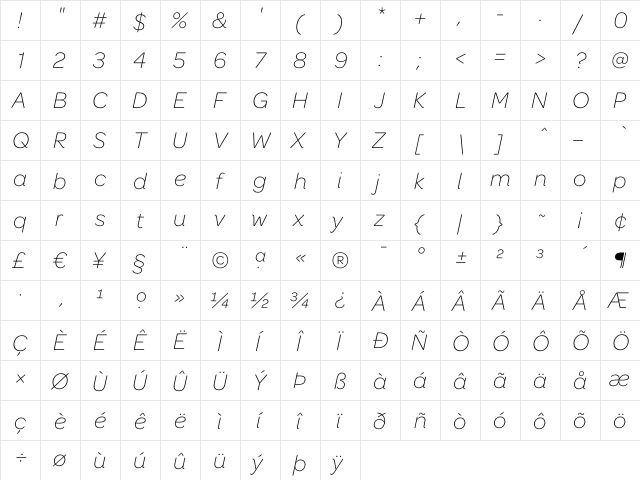
Omnes ExtraLight Italic Font Preview
Omnes ExtraLight Italic
Design Context for Omnes Typeface
Omnes offers clean, dependable letterforms without strong stylistic allegiance, making it a practical choice for designers who need flexibility. Its italic angle brings a sense of urgency and motion to the letterforms. Its slender proportions lend an understated elegance to any composition.
Pro Tip: Use Omnes for emphasis, pull quotes, and subheadings where its slanted energy can add rhythm to the layout.